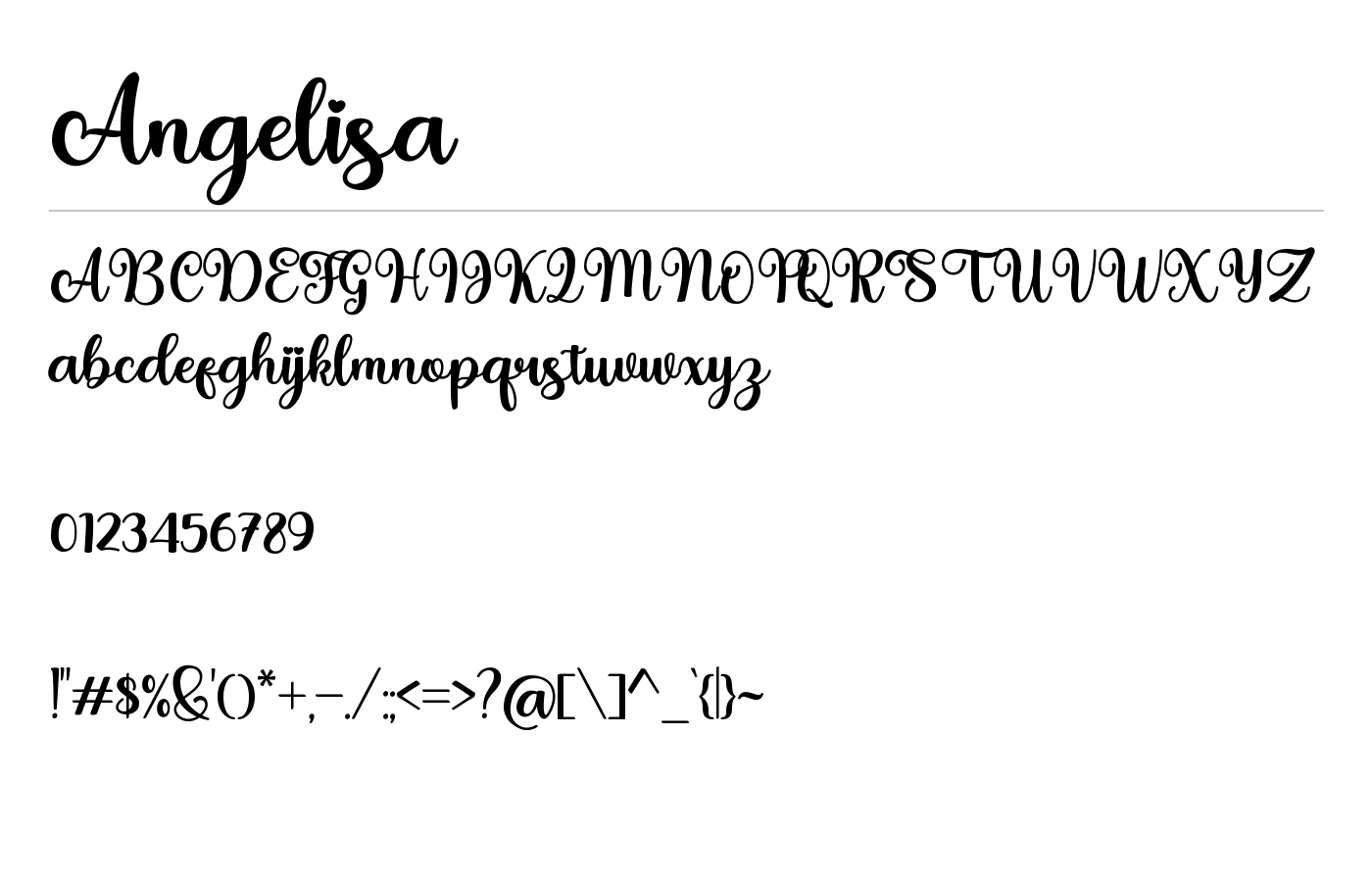
Angelisa is a playful and elegant script font featuring smooth, flowing lines and charming flourishes that add a personal, handwritten feel. Its balanced weight and clear letterforms make it perfect for invitations, branding, and creative projects that seek a friendly yet refined touch. This font works especially well in logos and decorative headlines where a warm, inviting style is desired.
Angelisa Font
About Angelisa Font
| Font family | Angelisa Font |
| Designer | Fatoni Nurman |
| Trademark | Angelisa is a trademark of Toni Studio |